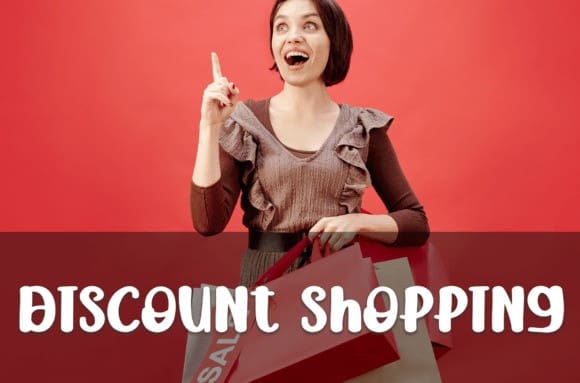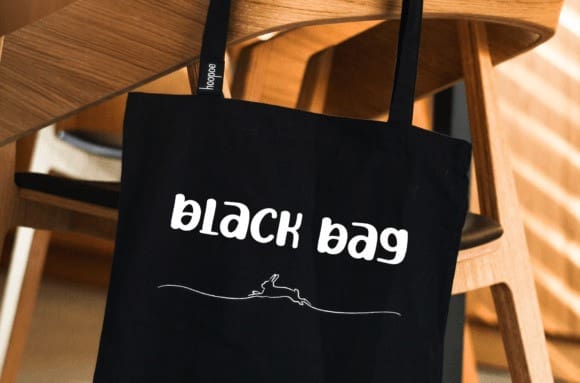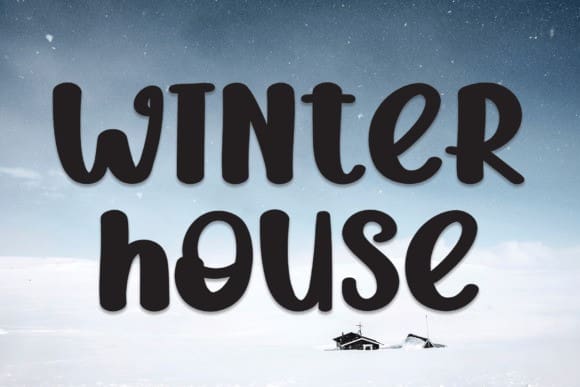
Winter House Typeface
Winter House Typeface, is a friendly handwritten font, carefully designed to become a true favorite. This font will be a great addition to your font library, as it will make all your creative projects come alive!